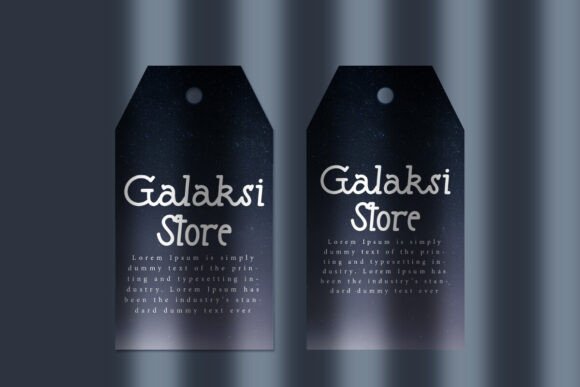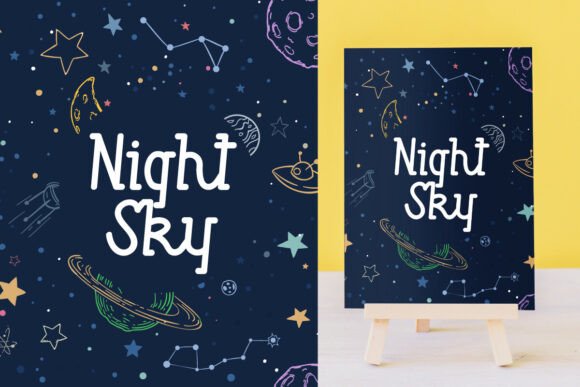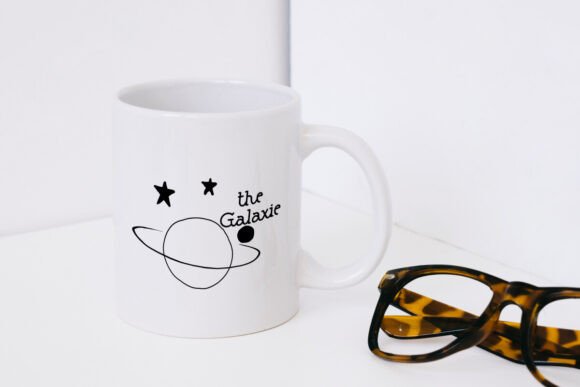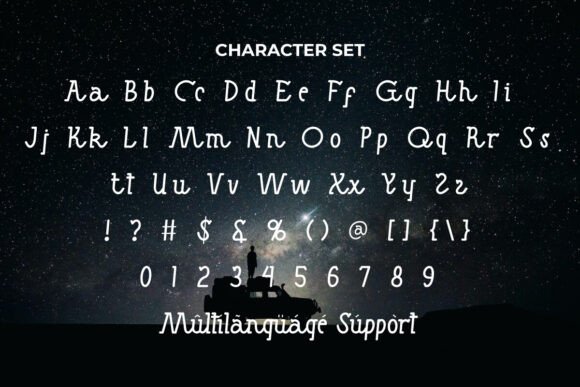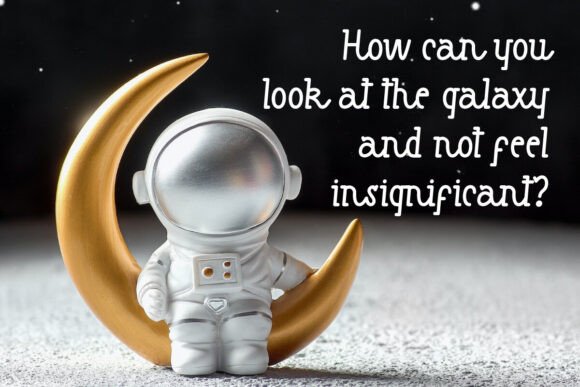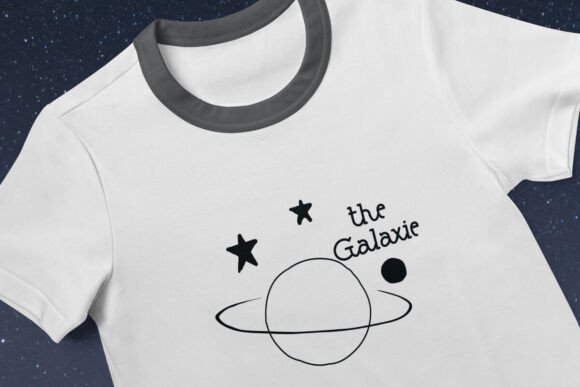
Introducing Galaxie Writer Font: The Perfect Blend of Modern Style and Classic Typewriter Charm
In the world of typography, fonts play a crucial role in conveying the tone and personality of a brand or design. For designers and crafters looking for a unique and stylish font that can elevate their creative projects, Galaxie Writer Font is an excellent choice. This modern typewriter font is designed to bring a touch of sophistication and elegance to various industries, including event organizing, accessories, café, entertainment, fashion, handicraft, photography, printing, publishing, skincare, writing, and many more.
What Makes Galaxie Writer Font Stand Out?
Galaxie Writer Font is a stylish modern typewriter font that boasts a distinctive feature – some of its letters have a tail, giving it the appearance of cursive writing. This unique characteristic sets it apart from traditional typewriter fonts and makes it perfect for designers who want to add a touch of personality to their work. The font’s modern style ensures that it remains versatile and can be used in a wide range of applications, from digital designs to print materials.
Industries That Can Benefit from Galaxie Writer Font
One of the key advantages of Galaxie Writer Font is its versatility. Its stylish and modern design makes it suitable for various industries, including:
- Event Organizer: Use Galaxie Writer Font to create stylish invitations, posters, and social media graphics that will make your events stand out.
- Accessories: Add a touch of elegance to your accessory designs, such as jewelry, handbags, or watches, with this beautiful font.
- Café: Create a unique brand identity for your café with Galaxie Writer Font, perfect for menus, flyers, and promotional materials.
- Entertainment: Use this font to create eye-catching posters, flyers, and social media graphics for movies, plays, or music events.
- Fashion: Elevate your fashion brand with Galaxie Writer Font, suitable for clothing labels, fashion magazines, and runway show designs.
- Handicraft: Add a personal touch to your handicraft designs, such as handmade cards, gift tags, or packaging materials.
- Photography: Use Galaxie Writer Font to create stunning photo captions, social media graphics, or even photo album designs.
- Printing: This font is perfect for printing businesses, suitable for business cards, brochures, and other print materials.
- Publishing: Galaxie Writer Font is a great choice for book covers, magazine layouts, and other publishing projects.
- Skincare: Create a luxurious brand identity for your skincare products with this elegant font, suitable for packaging, labels, and promotional materials.
- Writer: As a writer, you can use Galaxie Writer Font to create engaging blog posts, articles, or even book covers.
Why Designers and Crafters Love Galaxie Writer Font
Galaxie Writer Font has become a favorite among designers and crafters due to its unique features and versatility. Here are some reasons why:
- Unique Style: The font’s modern typewriter style with cursive tails sets it apart from other fonts, making it perfect for designers who want to create something distinctive.
- Easy to Read: Despite its stylish design, Galaxie Writer Font remains easy to read, making it suitable for body text and headlines.
- Highly Versatile: This font can be used in various industries and applications, from digital designs to print materials.
- Time-Saving: With Galaxie Writer Font, designers and crafters can save time and effort in creating unique and stylish designs.
In conclusion, Galaxie Writer Font is an excellent choice for designers and crafters looking for a stylish and modern typewriter font that can elevate their creative projects. Its unique features, versatility, and ease of use make it perfect for various industries and applications. Whether you’re an event organizer, fashion designer, or writer, Galaxie Writer Font is sure to become a valuable addition to your design toolkit.